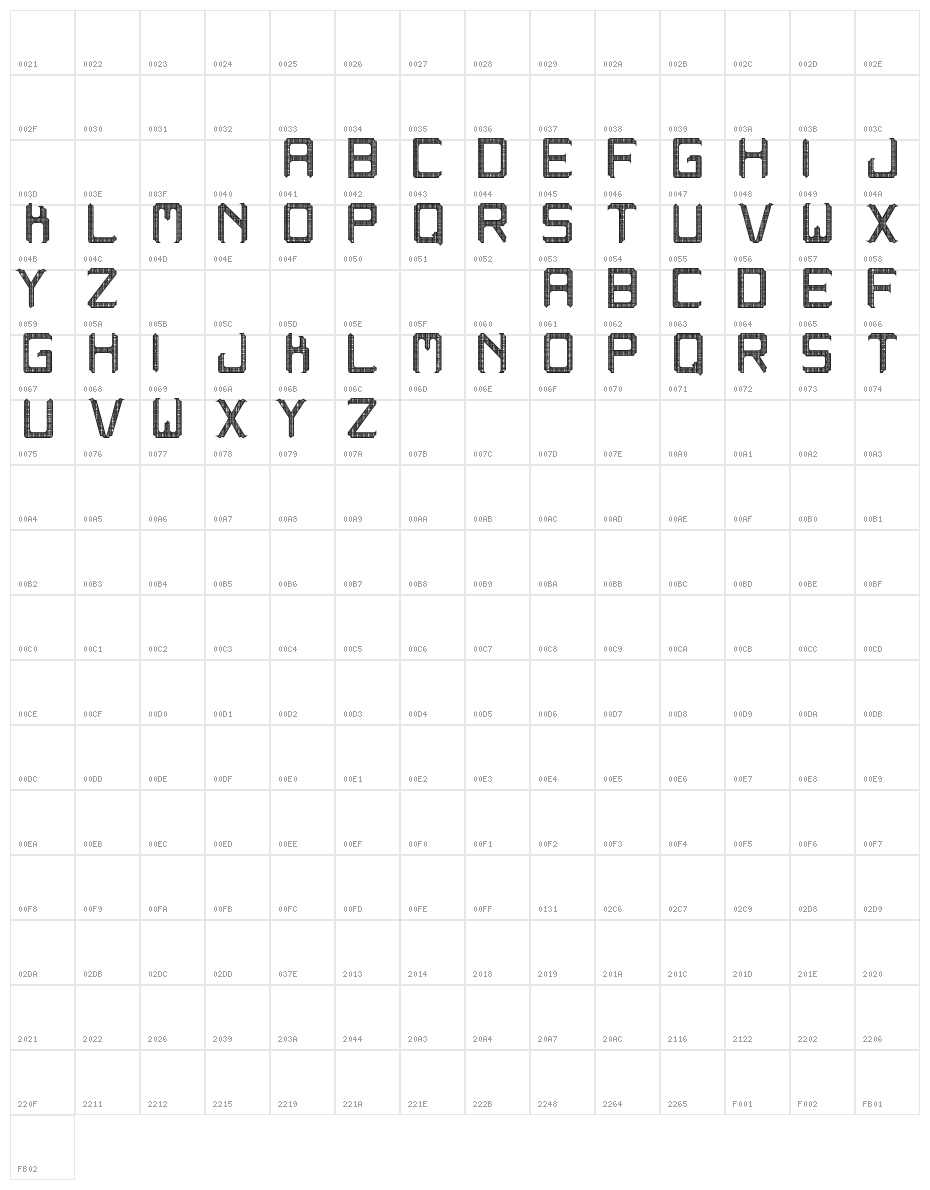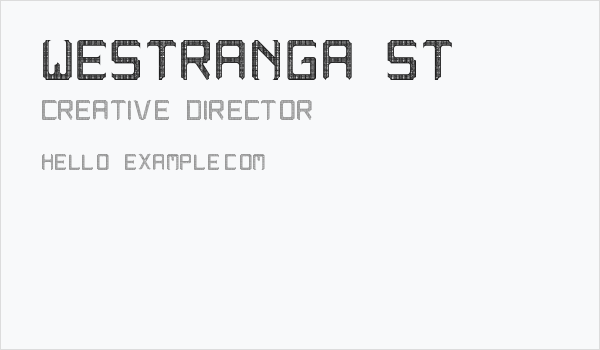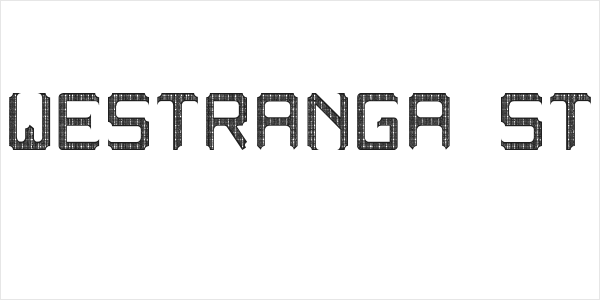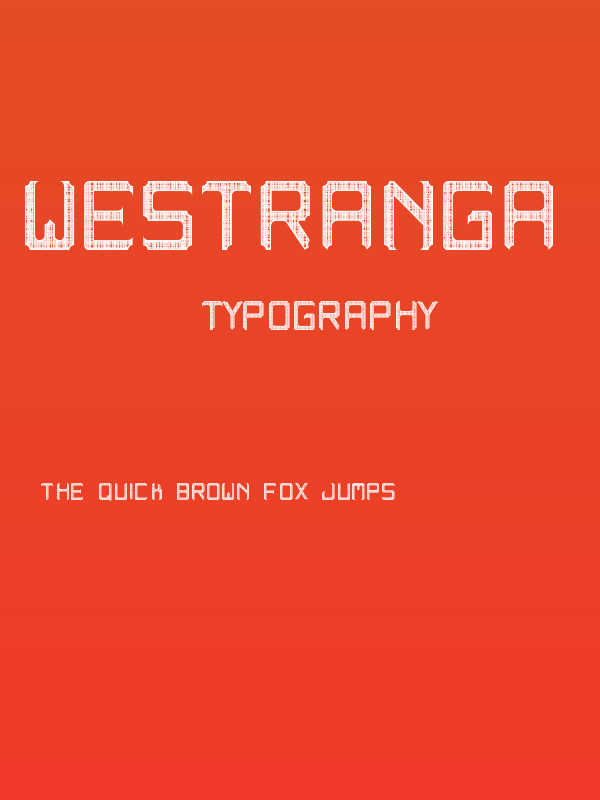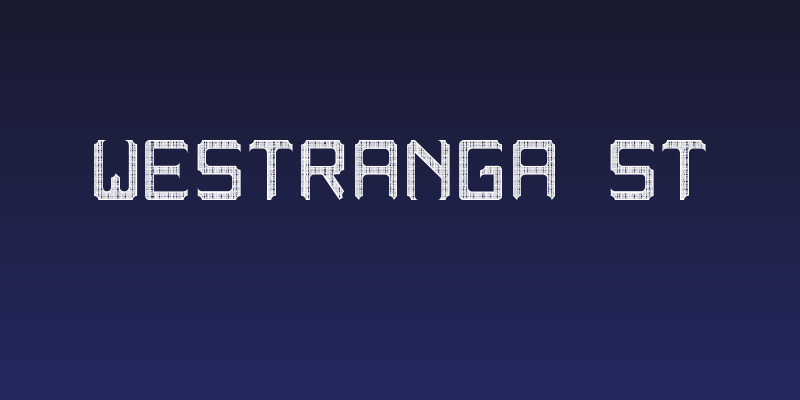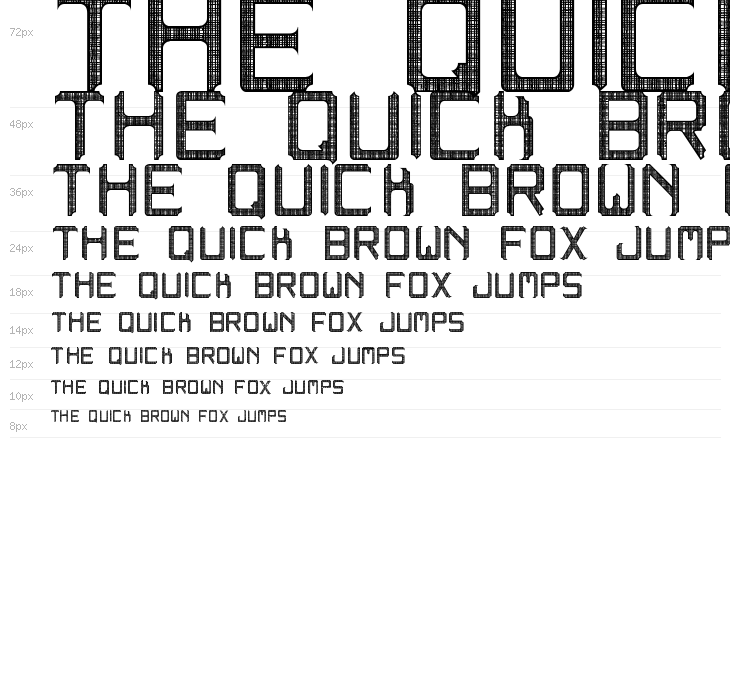
westranga st Font
westranga st Description
This font features a unique, decorative style with a grid-like pattern within each character, giving it a structured and industrial appearance. The uppercase letters are bold and angular, with sharp edges and a consistent height, creating a uniform look across the alphabet. The design incorporates a sense of depth and texture, making it stand out as a display typeface. The intricate detailing within each letterform suggests a mechanical or architectural influence, making it suitable for projects that require a modern yet complex aesthetic. The font's distinct style is ideal for creative applications where a strong visual impact is desired.
| Proposed Projects | Ideal for branding, posters, album covers, and any design work that requires a bold, industrial aesthetic. |